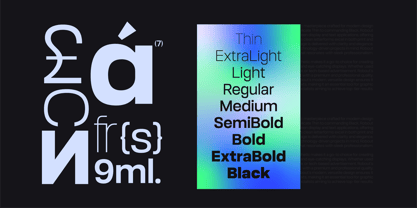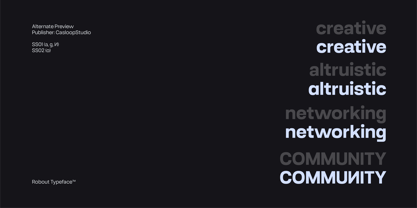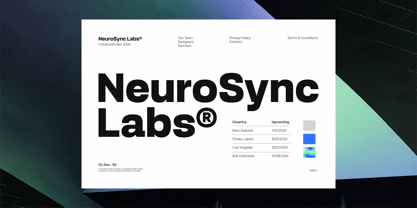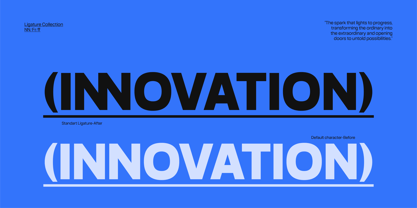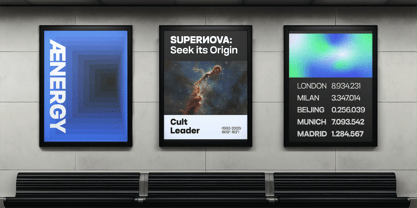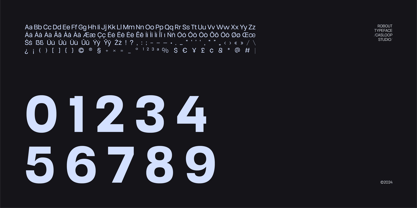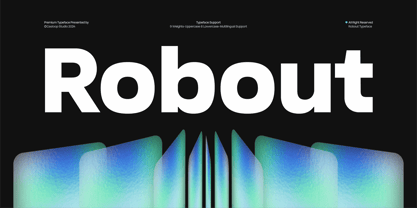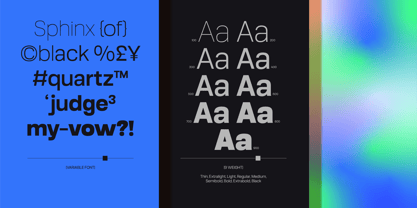
Robout
by Casloop Studio
The Robout Font Family was designed by Wantara Putra and published by Casloop Studio. Robout contains 9 styles and family package options.
Robout is a marquee-worthy modern sans-serif typeface designed for contemporary branding, editorial design, and digital interfaces. With clean, geometric letterforms and a focus on clarity and precision, Robout exudes professionalism and sophistication. Inspired by geometric grotesk styles, Robout seamlessly balances functionality with contemporary flair.
Multilingual Support: Robout supports a wide array of languages, including accented characters, making it an excellent choice for global audiences. Bosnian, Catalan, Czech, Danish, German, English, Spanish, Estonian, Finnish, French, Bergen, Wild, Irish, Mango, Croatian, Hungarian, Icelandic, Italian, Lithuanian, Tan, Latvian, Maltese, Dutch, Norwegian, Polish, Haas, Portuguese, Romanian, Slovak, Slovenian, Albanian, Swedish, Turkish.
Robout stands as a professional yet approachable typeface, balancing a clean, minimalist style with a hint of boldness. It communicates trust, innovation, and clarity, making it suitable for industries ranging from technology and education to fashion and media.